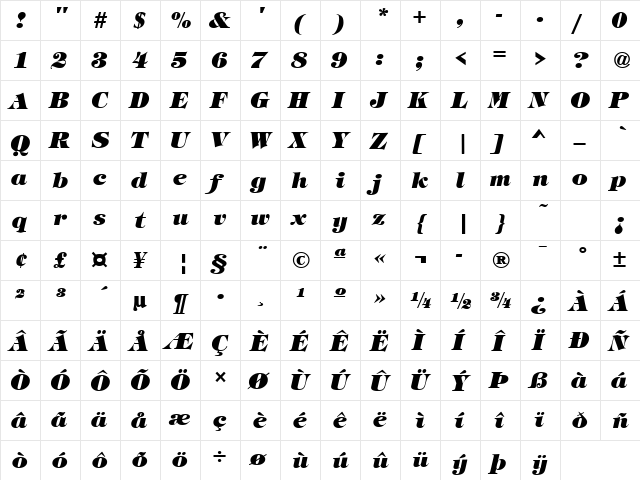
TiffanyLH Bold Italic
Design Context for TiffanyLH Typeface
TiffanyLH takes a measured approach to typography — its balanced proportions and neutral character make it a reliable workhorse for both digital and print work. Its italic angle brings a sense of urgency and motion to the letterforms. The heavy weight commands attention and anchors typographic hierarchies.